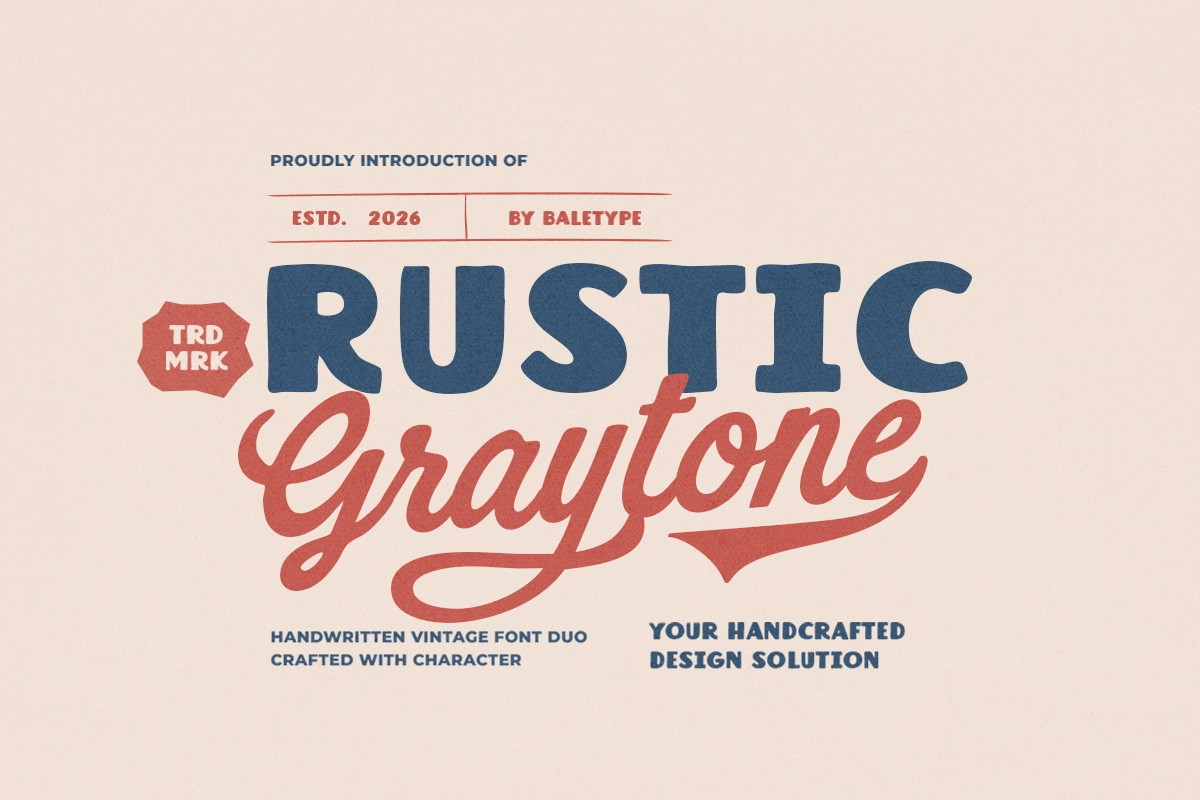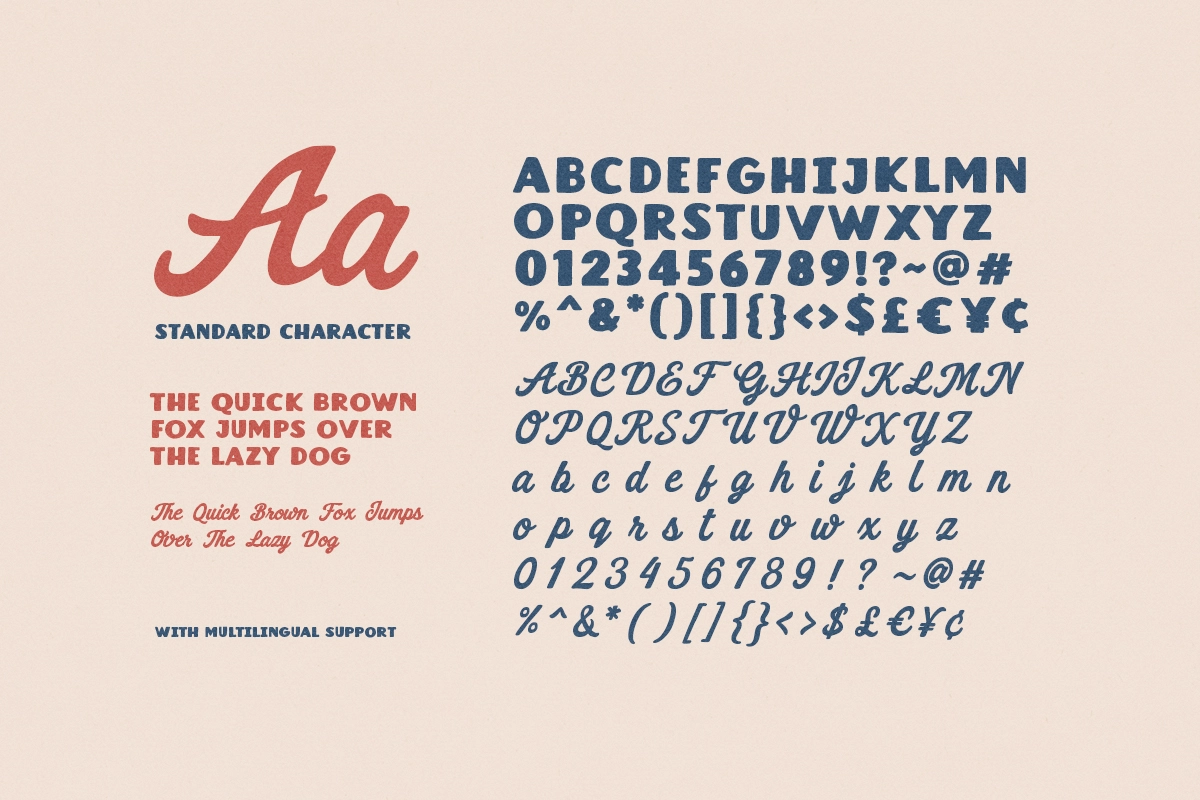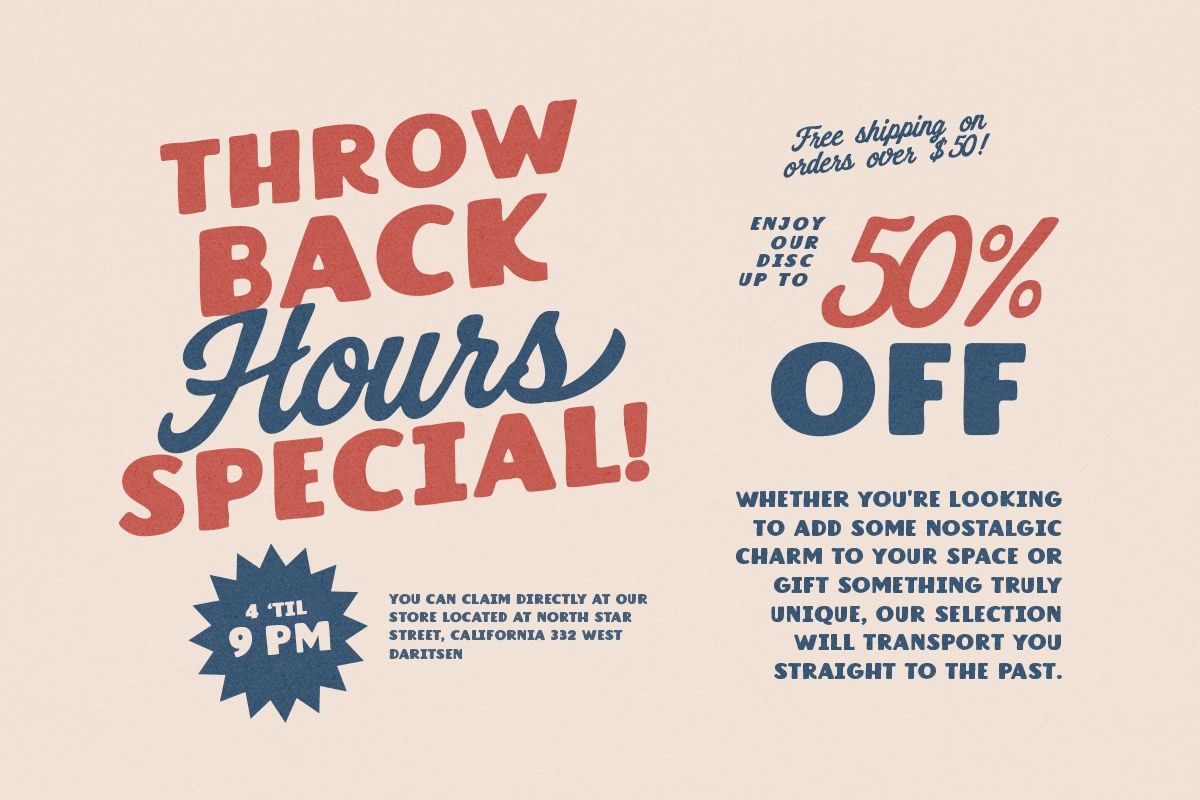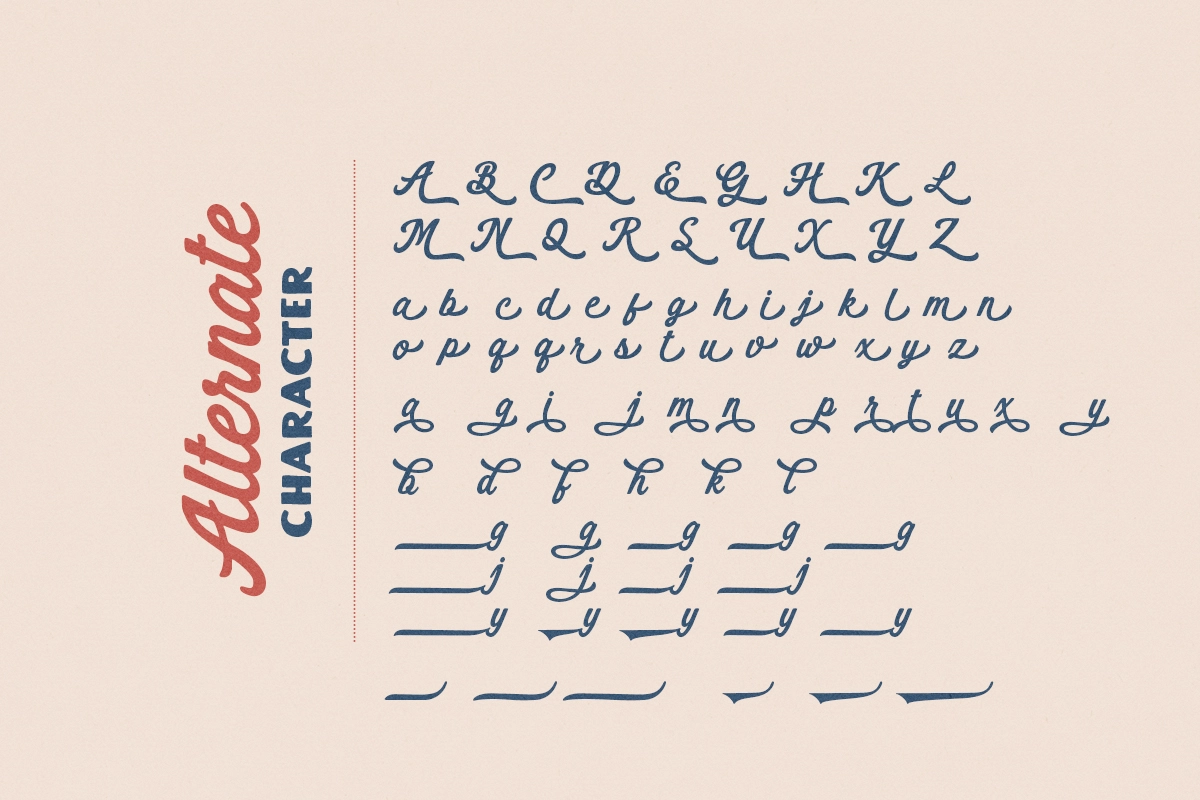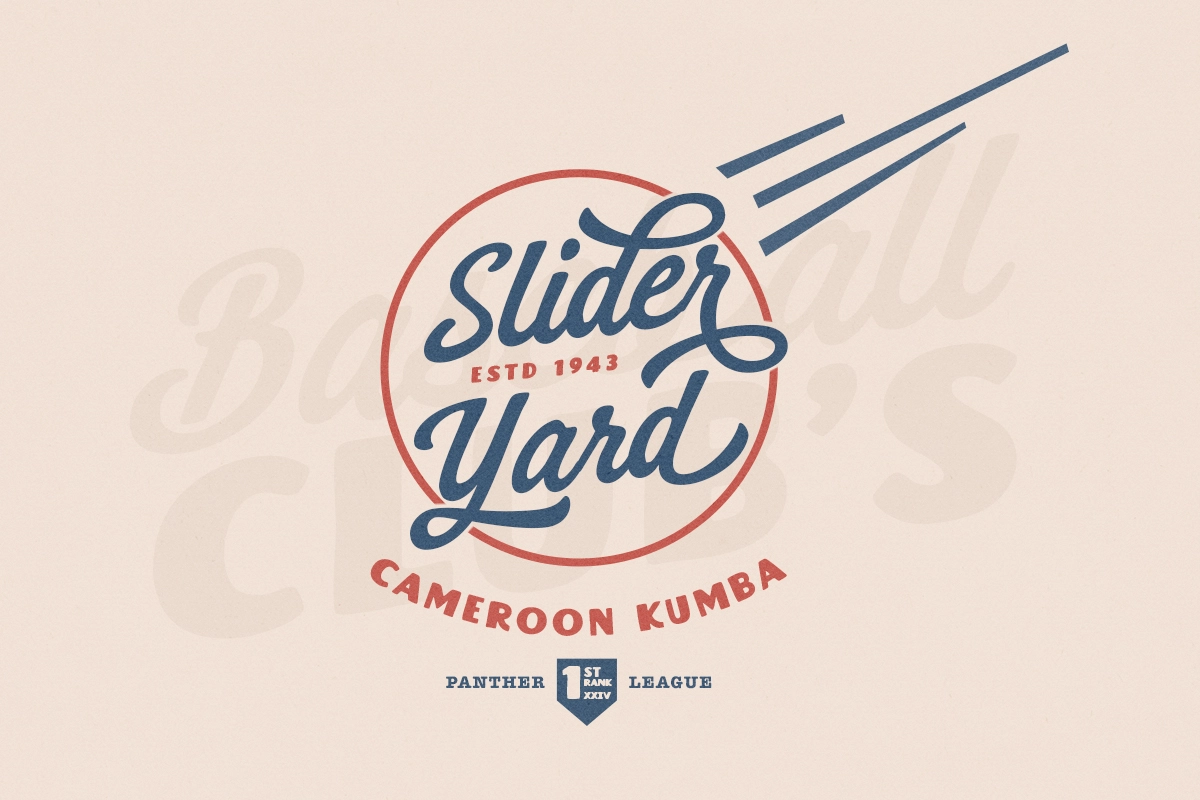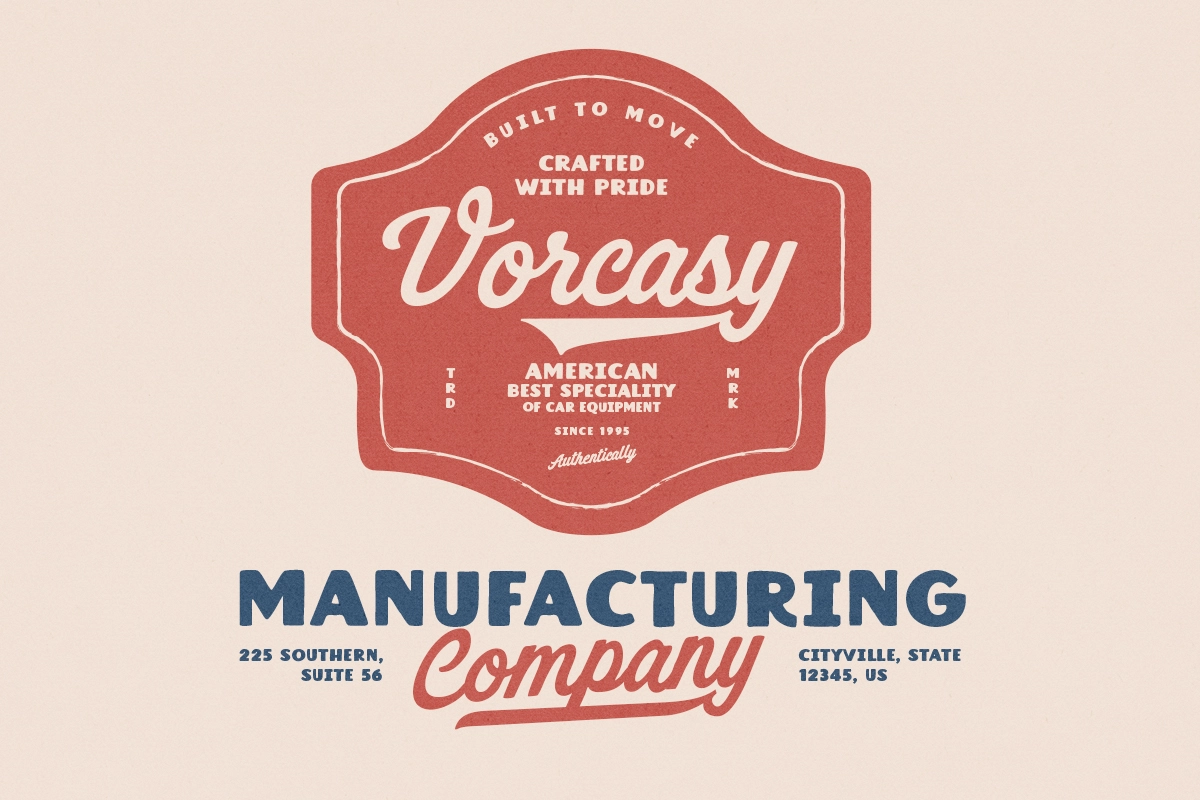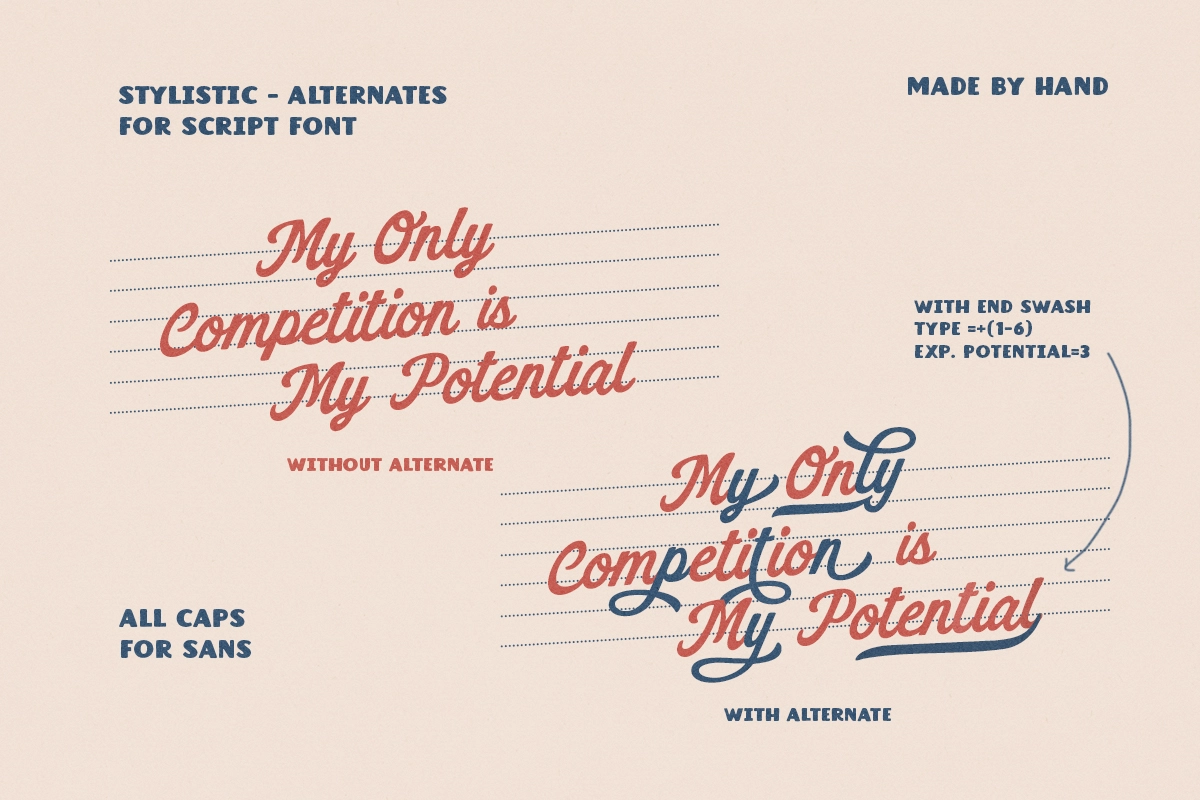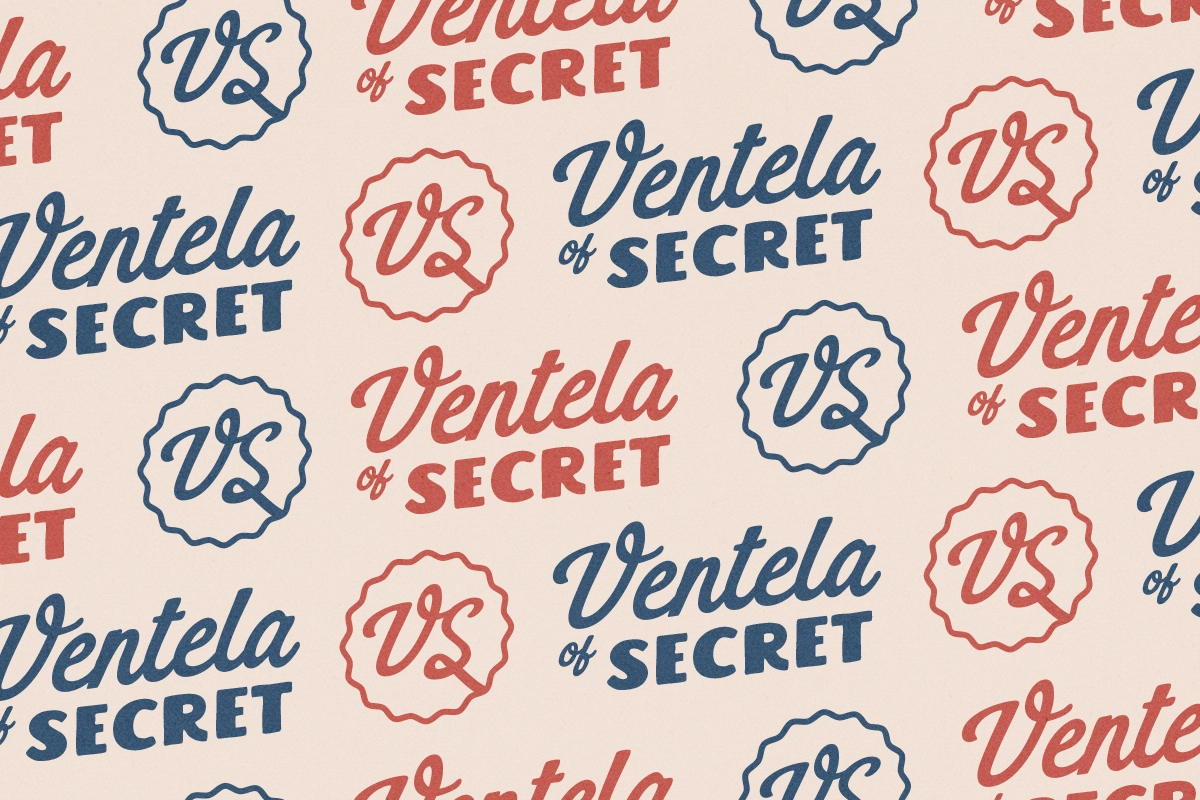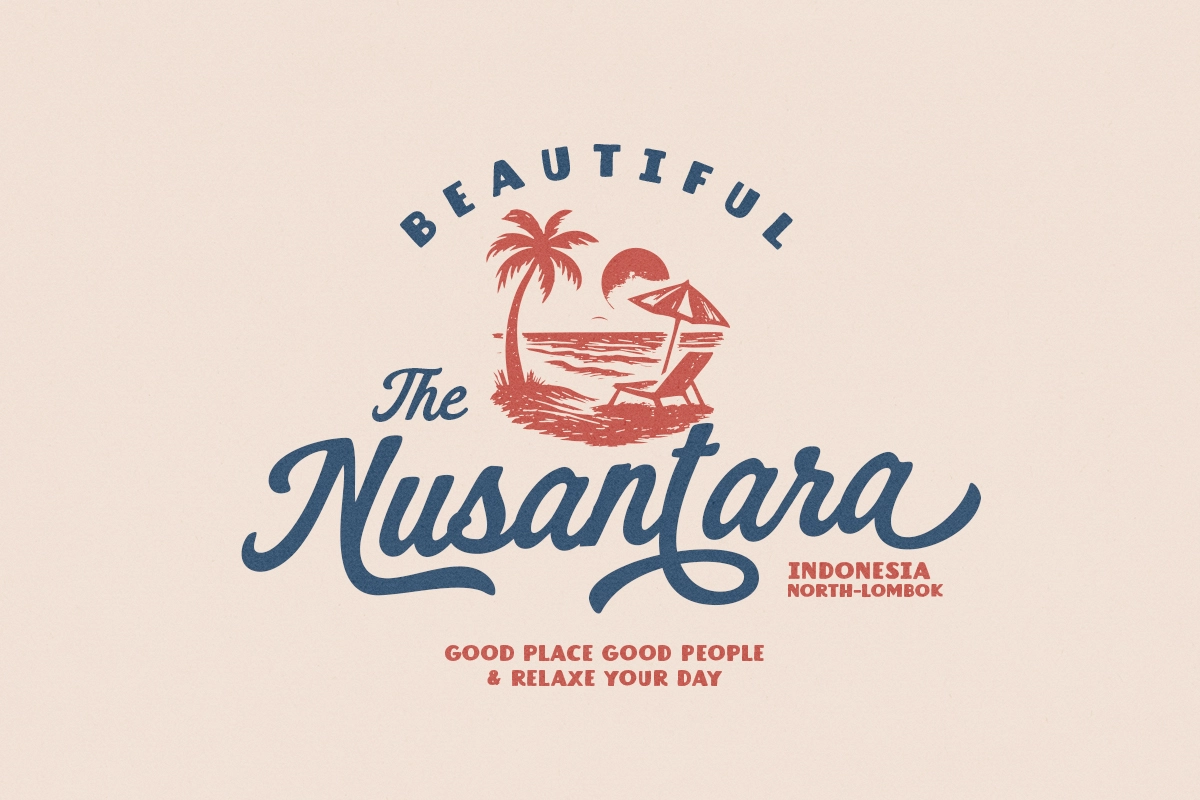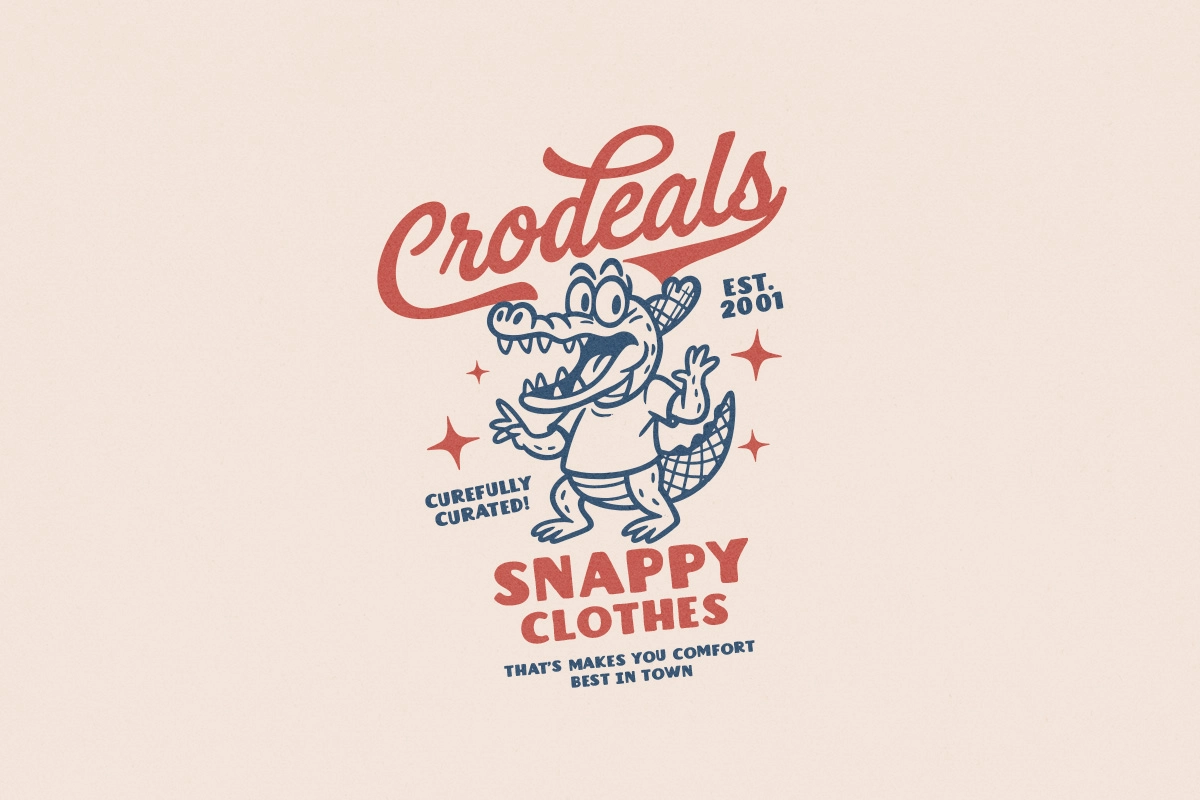
Rustic Graytone – Retro Script and Sans Font Duo
Rustic Graytone – Retro Script and Sans Font Duo is a vintage-inspired typeface pairing that blends bold sans serif structure with expressive hand-lettered script. This combination creates a striking contrast between strong, grounded forms and smooth, flowing strokes—capturing the essence of retro aesthetics with a modern and versatile feel.
Designed for impactful logotypes and nostalgic branding, Rustic Graytone – Retro Script and Sans Font Duo brings warmth and character to any project. The script includes alternates and ligatures for natural variation, while customizable swashes allow you to add decorative endings with simple commands, making it easy to create unique and eye-catching typography.
Bold Sans Serif
Script Font
Uppercase & Lowercase Characters
Alternates & Ligatures
Numerals & Punctuation